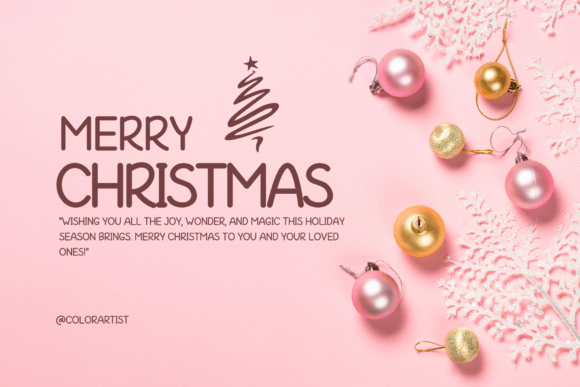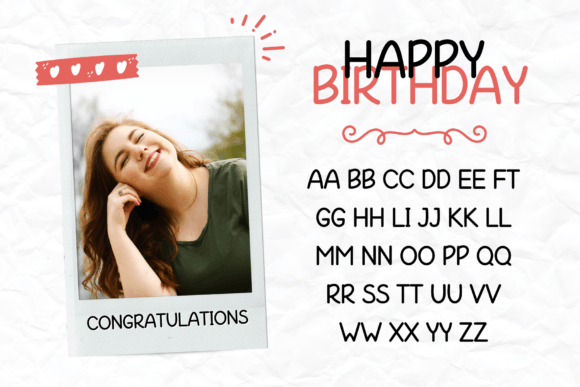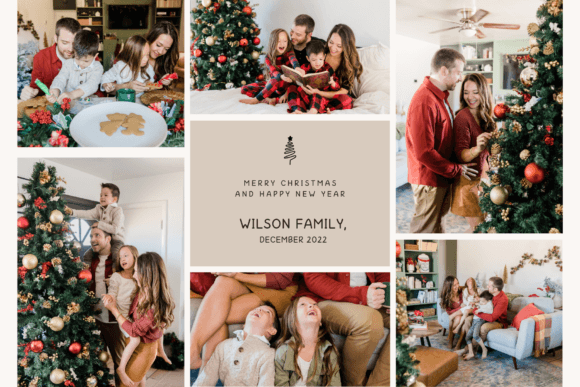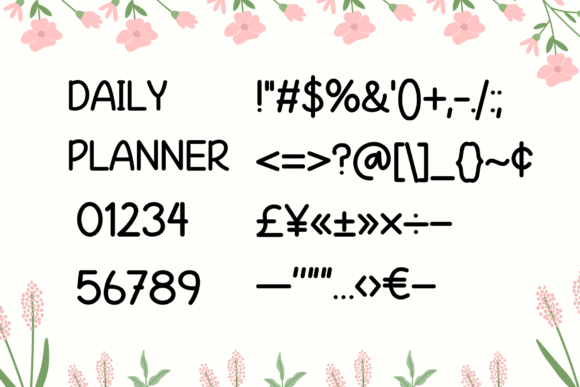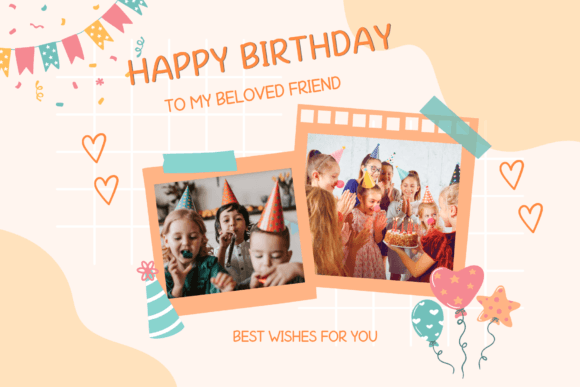
Introduction to Regnbue Font
Do you remember that moment when you finally nailed the perfect design for your project, and it felt like a work of art? The colors, the layout, the typography – everything came together in perfect harmony. For designers like us, these moments are what make all the hard work worth it. And when it comes to adding that special touch, a high-quality font can make all the difference.
That’s where Regnbue Font comes in – a collection of bestselling handwritten fonts that are perfect for elevating your creative projects. With its unique, artistic style, Regnbue Font is a valuable resource for designers who want to add a personal touch to their work.
Whether you’re working on a design project, crafting a custom invitation, or simply looking for a new way to express yourself, Regnbue Font is the perfect choice. And the best part? It’s available for free download, making it an accessible and affordable design resource for anyone.
Key Features of Regnbue Font
- High-quality, vector-based design resource ideal for creative projects requiring a professional touch.
- Regnbue Font is available in a single size, making it easy to use across various design applications.
- Features a high-resolution design, suitable for use in both print and digital media, including web design and social media graphics.
- Designed to be highly legible and visually appealing, making it an excellent choice for creative projects requiring a unique touch.
Honest Review: Regnbue Font
As a designer, I’m always on the lookout for high-quality design resources that can elevate my creative projects. The Regnbue Font is one such find that caught my attention, and I’m excited to share my honest review with you.
What works well: ✨ The Regnbue Font is a beautifully crafted sans-serif font with a modern and sleek design aesthetic. It’s perfect for creating a clean and minimalist look in your designs, whether it’s for a brochure, website, or social media graphics. The font is also highly legible, making it suitable for body text as well as headings.
- ✨ Transparent background: The font has a transparent background, allowing for easy overlaying on images or other design elements.
What doesn’t work so well: ⚠️ While the Regnbue Font is generally well-behaved, it can sometimes exhibit font kerning issues, particularly when used in combination with other fonts. This can result in slightly awkward spacing between characters.
Overall impression: I’m impressed with the Regnbue Font’s clean design and high-quality feel. While it may not be perfect, it’s a great addition to any designer’s toolkit, especially for those working on creative projects that require a modern and minimalist aesthetic.
How to Use Regnbue Font
The Regnbue Font is a high-quality, free design resource that can add a touch of creativity to any project. With its transparent background, this font is perfect for designers looking for a unique and versatile design element.
Tips for Getting the Most Out of Regnbue Font
To get the most out of Regnbue Font, experiment with different font sizes, colors, and combinations. You can also use it in conjunction with other design elements, such as graphics and images, to create a unique and eye-catching design.
The Regnbue Font is perfect for creative projects, such as social media graphics, flyers, and brochures. It’s also great for adding a touch of personality to business documents, such as reports and presentations.